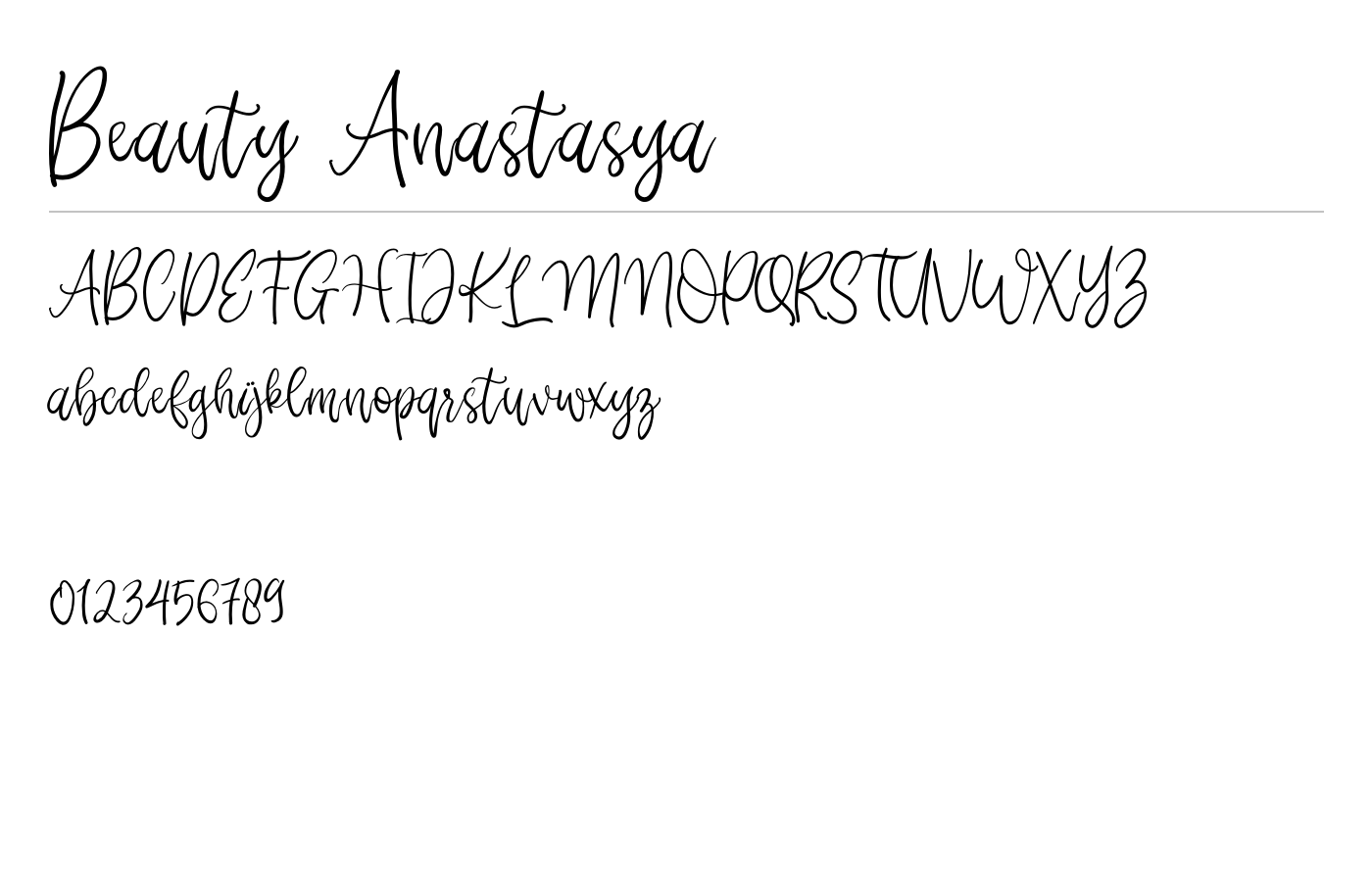
Beauty Anastasya is a delicate, handwritten script font that captures an elegant and personal touch with its smooth, flowing letterforms and slender strokes. Its tall, slightly narrow characters and playful yet refined style make it perfect for beauty, fashion, and lifestyle branding, as well as invitations and social media graphics where a stylish, approachable feel is desired. This font shines best in headlines and decorative text, bringing a graceful and charming personality to any creative project.
Beauty Anastasya Font
About Beauty Anastasya Font
| Font family | Beauty Anastasya Font |